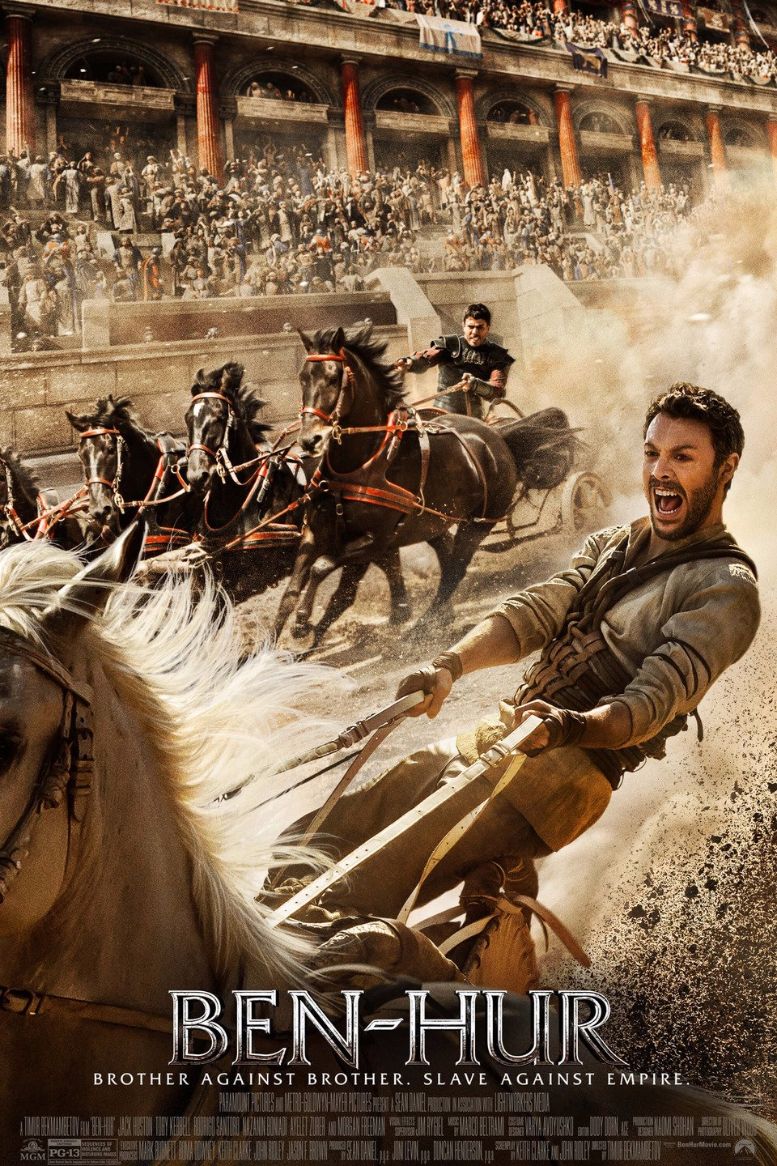
Ben-Hur (film) Font
ActionBen-Hur is a 2016 American epic historical action drama adventure film based on the 1880 novel Ben-Hur: A Tale of the Christ. The protagonist of the movie, a nobleman named Judah Ben-Hur, is accused of treason by his adopted brother Messala and sentenced to years of slavery. However, he returns to seek revenge by competing with him in a race.
Ben-Hur title on the poster was probably created using glyphic serif fonts Friz Quadrata by Ernst Friz and Victor Caruso, who designed it for Visual Graphics Corporation in 1965. The typeface is ideal for display font, short texts, and headlines.